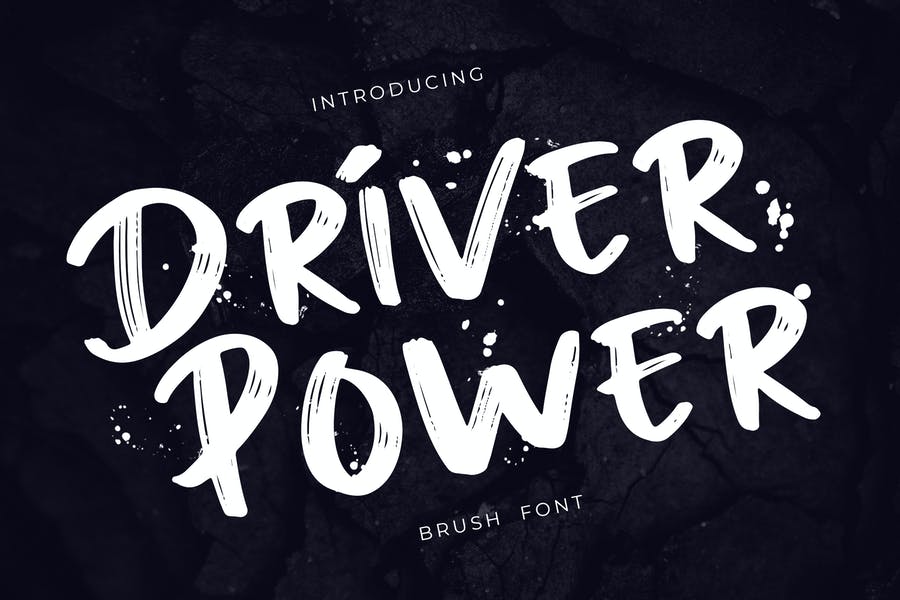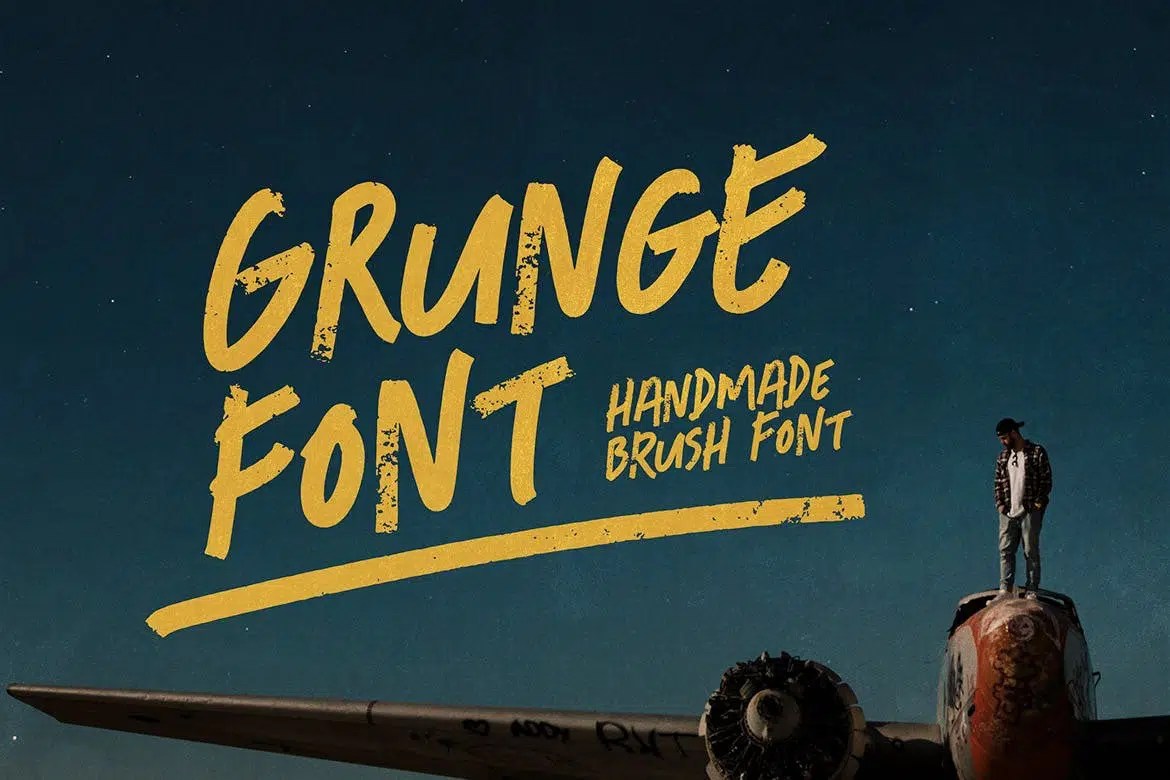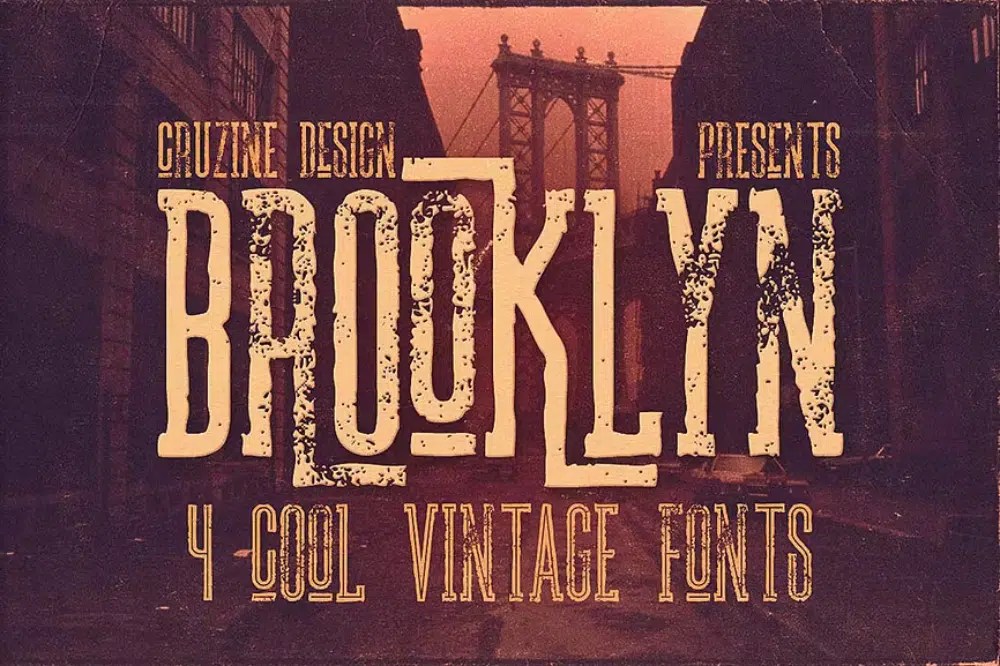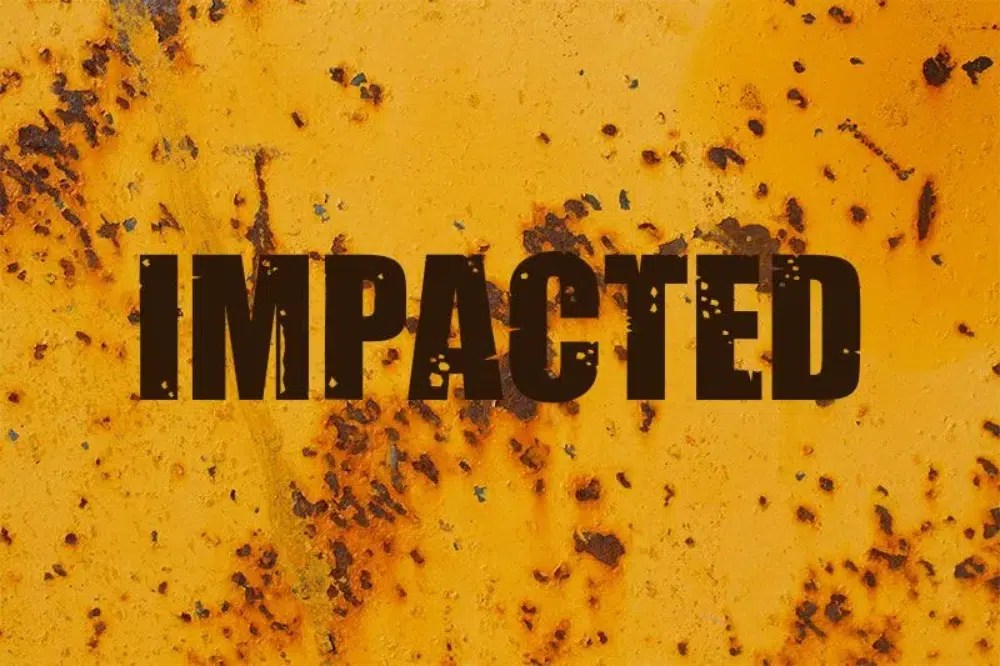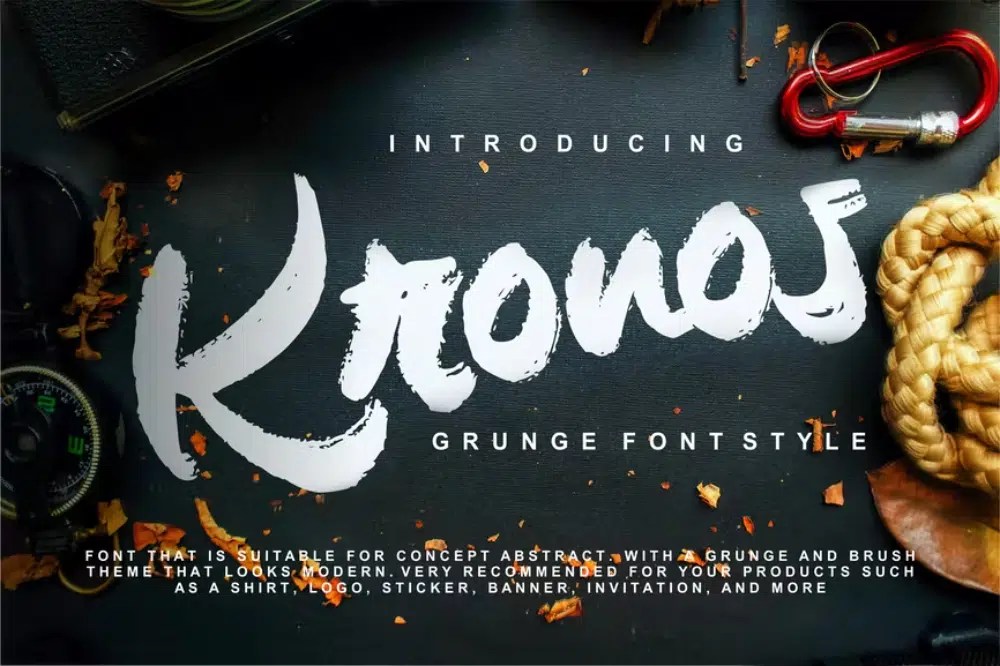
Best Grunge Fonts For Graphic Designers . Instead of shiny, crisp typefaces, many artists and designers are seeking to use an urban, dirty, street style in their designs. Let it complete the picture you are building and arouse the most special emotion with. We've scoured the web to find you top free grunge fonts available to download now. You can make your next project as tempting as never before with a matching grunge font. Our featured post includes a list of 30 free cool looking grunge fonts that can be used to help with your grunge style design projects. In this collection, we feature a diverse array of the best free and premium grunge fonts you use for various types of designs. These 3 are my absolute top picks: Free fonts in a grungey style are becoming increasingly popular. In this piece, i've personally selected 25 captivating grunge fonts that i believe are perfect for adding an edge to your designs.
Instead of shiny, crisp typefaces, many artists and designers are seeking to use an urban, dirty, street style in their designs. These 3 are my absolute top picks: You can make your next project as tempting as never before with a matching grunge font. In this piece, i've personally selected 25 captivating grunge fonts that i believe are perfect for adding an edge to your designs. Our featured post includes a list of 30 free cool looking grunge fonts that can be used to help with your grunge style design projects. We've scoured the web to find you top free grunge fonts available to download now. In this collection, we feature a diverse array of the best free and premium grunge fonts you use for various types of designs. Let it complete the picture you are building and arouse the most special emotion with. Free fonts in a grungey style are becoming increasingly popular.
Best Grunge Fonts For Graphic Designers In this collection, we feature a diverse array of the best free and premium grunge fonts you use for various types of designs. These 3 are my absolute top picks: In this piece, i've personally selected 25 captivating grunge fonts that i believe are perfect for adding an edge to your designs. In this collection, we feature a diverse array of the best free and premium grunge fonts you use for various types of designs. Instead of shiny, crisp typefaces, many artists and designers are seeking to use an urban, dirty, street style in their designs. You can make your next project as tempting as never before with a matching grunge font. We've scoured the web to find you top free grunge fonts available to download now. Free fonts in a grungey style are becoming increasingly popular. Our featured post includes a list of 30 free cool looking grunge fonts that can be used to help with your grunge style design projects. Let it complete the picture you are building and arouse the most special emotion with.
Best Grunge Fonts Top 30+ For Designers (Free & Paid) Best Grunge Fonts For Graphic Designers Free fonts in a grungey style are becoming increasingly popular. Let it complete the picture you are building and arouse the most special emotion with. In this piece, i've personally selected 25 captivating grunge fonts that i believe are perfect for adding an edge to your designs. We've scoured the web to find you top free grunge fonts available to. Best Grunge Fonts For Graphic Designers.
Grunge Font by Infinity art Studio · Creative Fabrica Best Grunge Fonts For Graphic Designers These 3 are my absolute top picks: In this collection, we feature a diverse array of the best free and premium grunge fonts you use for various types of designs. Free fonts in a grungey style are becoming increasingly popular. We've scoured the web to find you top free grunge fonts available to download now. Let it complete the picture. Best Grunge Fonts For Graphic Designers.
Best Grunge Fonts Top 30+ For Designers (Free & Paid) Best Grunge Fonts For Graphic Designers In this collection, we feature a diverse array of the best free and premium grunge fonts you use for various types of designs. We've scoured the web to find you top free grunge fonts available to download now. Our featured post includes a list of 30 free cool looking grunge fonts that can be used to help with your grunge. Best Grunge Fonts For Graphic Designers.
Best Grunge Fonts Top 30+ For Designers (Free & Paid) Best Grunge Fonts For Graphic Designers Let it complete the picture you are building and arouse the most special emotion with. Our featured post includes a list of 30 free cool looking grunge fonts that can be used to help with your grunge style design projects. We've scoured the web to find you top free grunge fonts available to download now. Free fonts in a grungey. Best Grunge Fonts For Graphic Designers.
Best Grunge Fonts Top 30+ For Designers (Free & Paid) Best Grunge Fonts For Graphic Designers These 3 are my absolute top picks: In this collection, we feature a diverse array of the best free and premium grunge fonts you use for various types of designs. Free fonts in a grungey style are becoming increasingly popular. You can make your next project as tempting as never before with a matching grunge font. Our featured post includes. Best Grunge Fonts For Graphic Designers.
22 Best Grunge Fonts for Retro Designs Design Inspiration Best Grunge Fonts For Graphic Designers Instead of shiny, crisp typefaces, many artists and designers are seeking to use an urban, dirty, street style in their designs. We've scoured the web to find you top free grunge fonts available to download now. Our featured post includes a list of 30 free cool looking grunge fonts that can be used to help with your grunge style design. Best Grunge Fonts For Graphic Designers.
35+ Best Grunge Fonts (Free & Paid) The Designest Best Grunge Fonts For Graphic Designers Our featured post includes a list of 30 free cool looking grunge fonts that can be used to help with your grunge style design projects. In this collection, we feature a diverse array of the best free and premium grunge fonts you use for various types of designs. These 3 are my absolute top picks: We've scoured the web to. Best Grunge Fonts For Graphic Designers.
35+ Best Grunge Fonts (Free & Paid) The Designest Best Grunge Fonts For Graphic Designers Let it complete the picture you are building and arouse the most special emotion with. In this collection, we feature a diverse array of the best free and premium grunge fonts you use for various types of designs. We've scoured the web to find you top free grunge fonts available to download now. Our featured post includes a list of. Best Grunge Fonts For Graphic Designers.
50 Best Grunge Fonts to Enhance Designs 2024 Templatefor Best Grunge Fonts For Graphic Designers Let it complete the picture you are building and arouse the most special emotion with. These 3 are my absolute top picks: In this collection, we feature a diverse array of the best free and premium grunge fonts you use for various types of designs. We've scoured the web to find you top free grunge fonts available to download now.. Best Grunge Fonts For Graphic Designers.